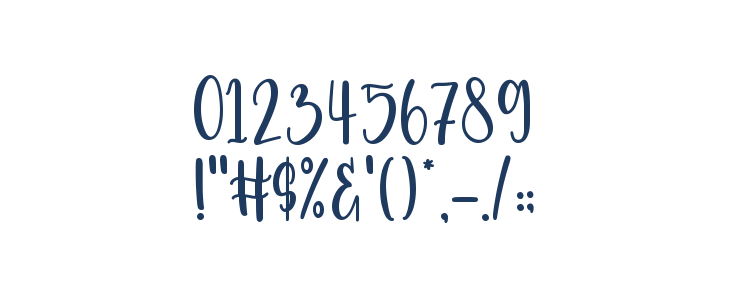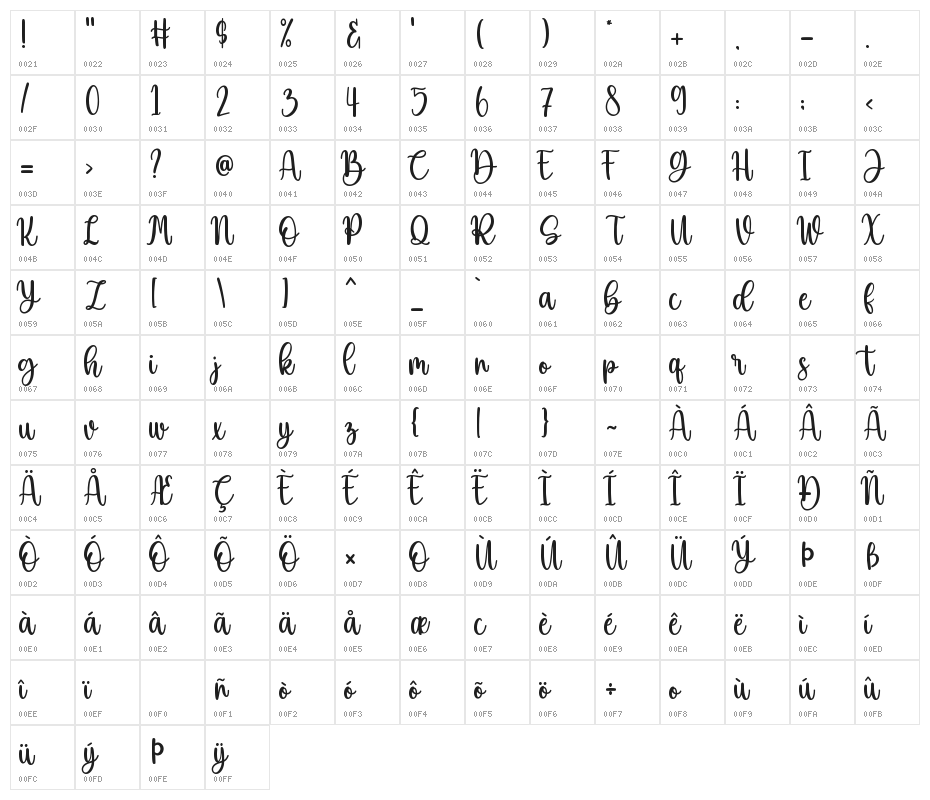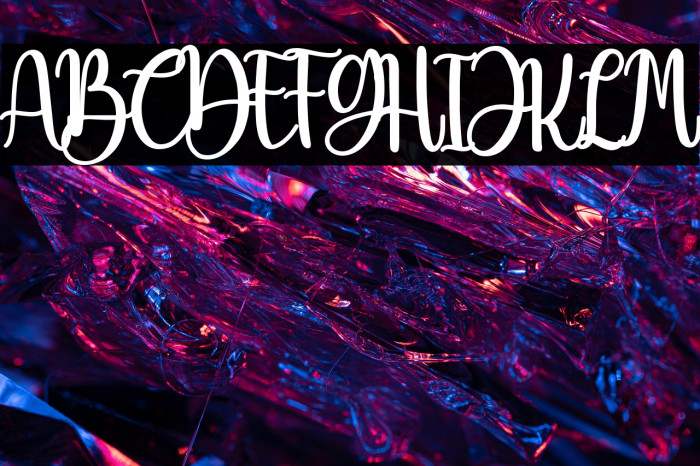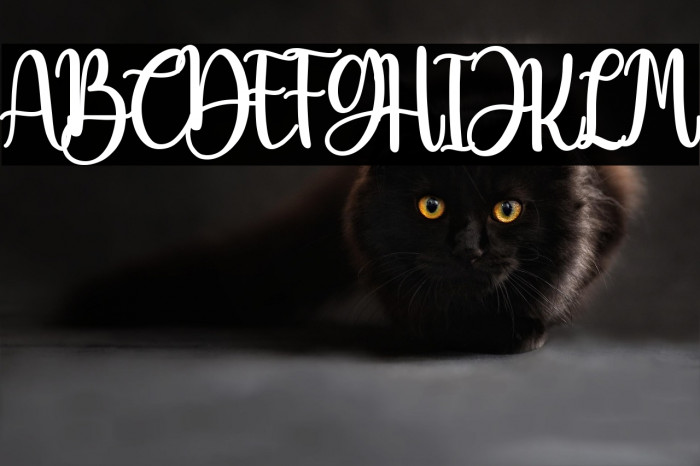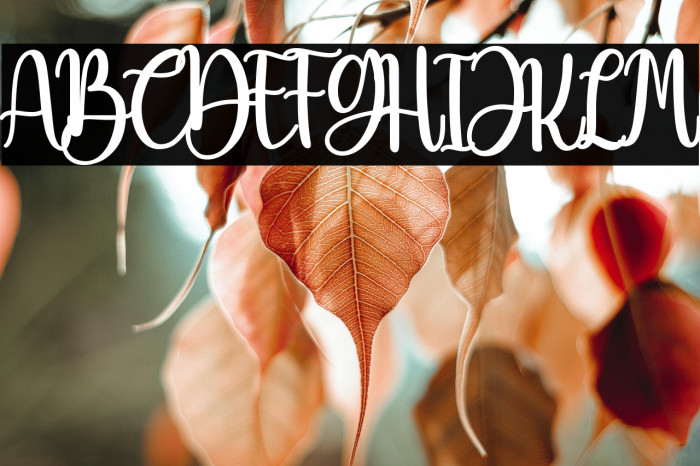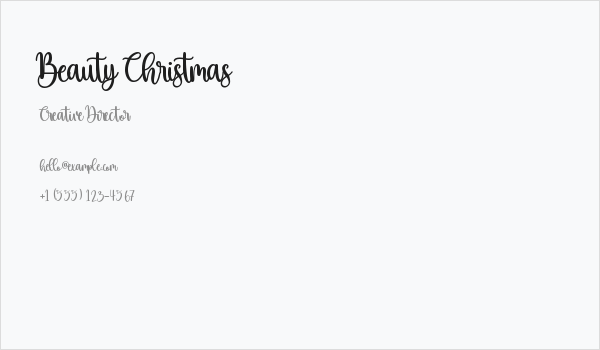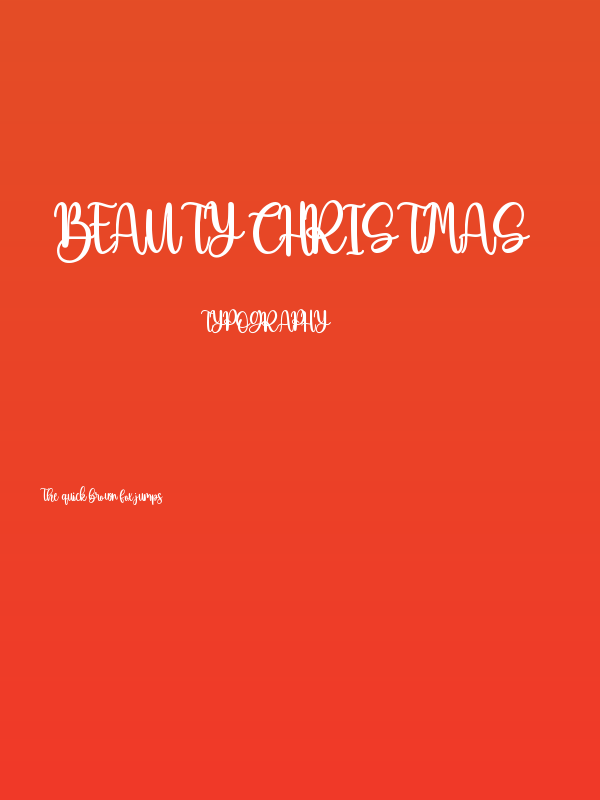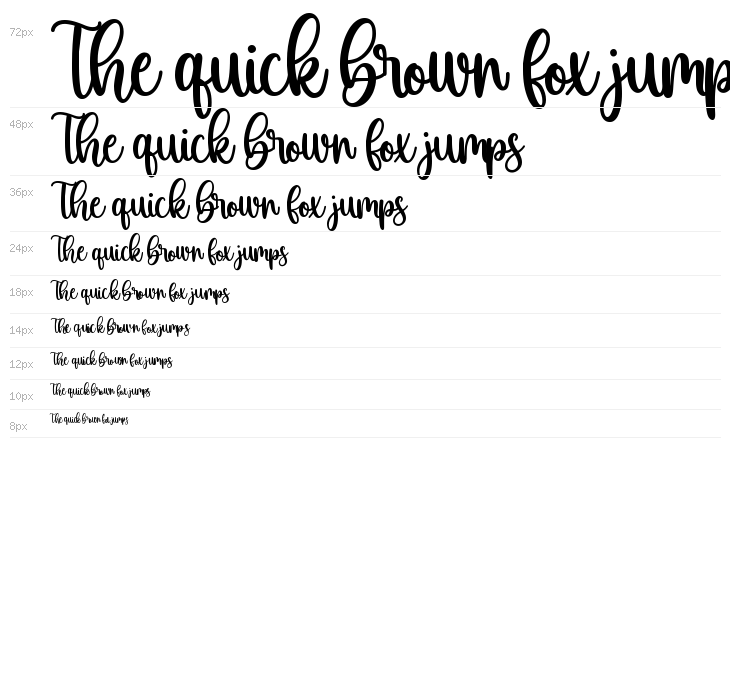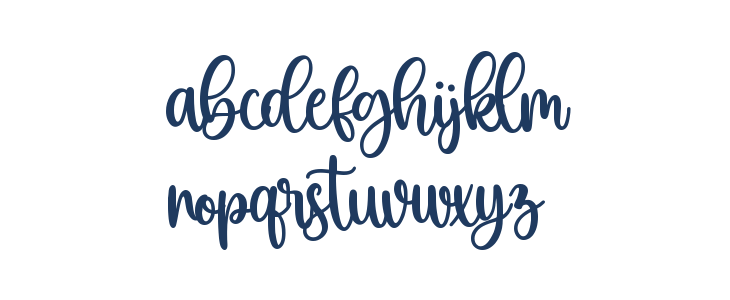
Beauty Christmas Font
Beauty Christmas Description
This font features a playful and whimsical handwritten style with a touch of elegance. The letters are characterized by their flowing, cursive forms and consistent stroke weight, giving it a lively and festive appearance. The uppercase letters are bold and prominent, while the lowercase letters maintain a smooth and connected script. The numbers and special characters follow the same playful aesthetic, making it suitable for creative and decorative projects. The overall look is both charming and approachable, perfect for adding a personal touch to any design.